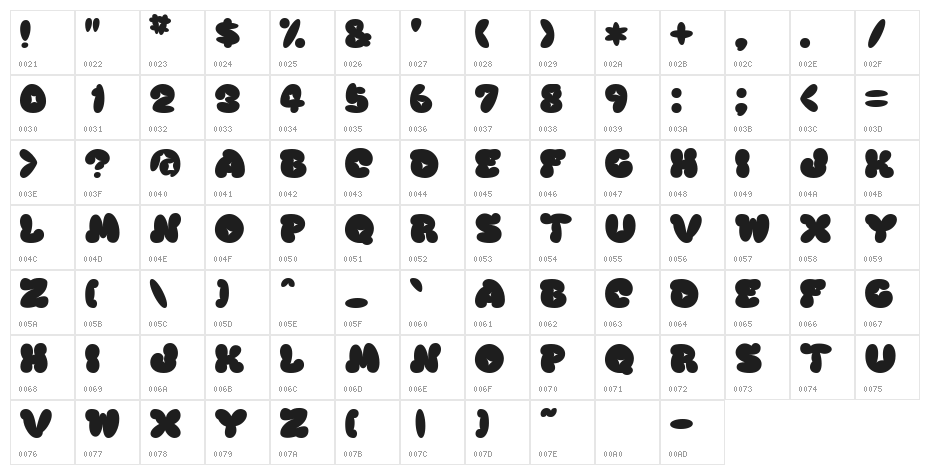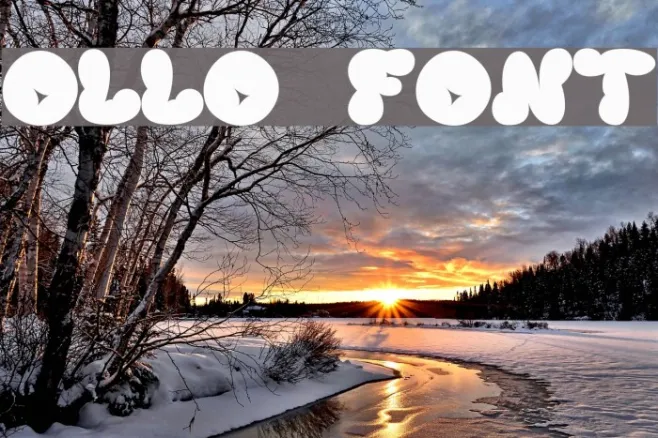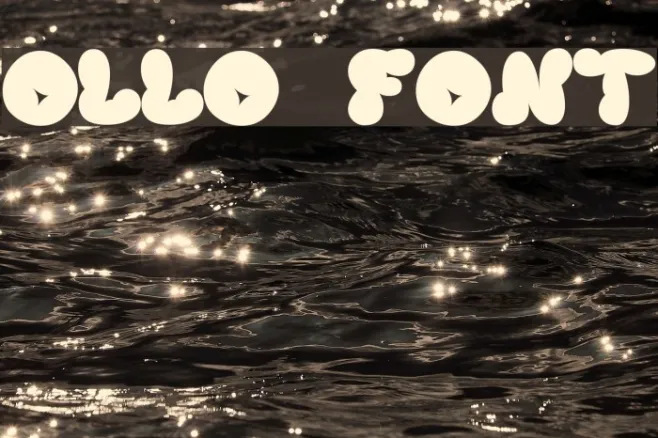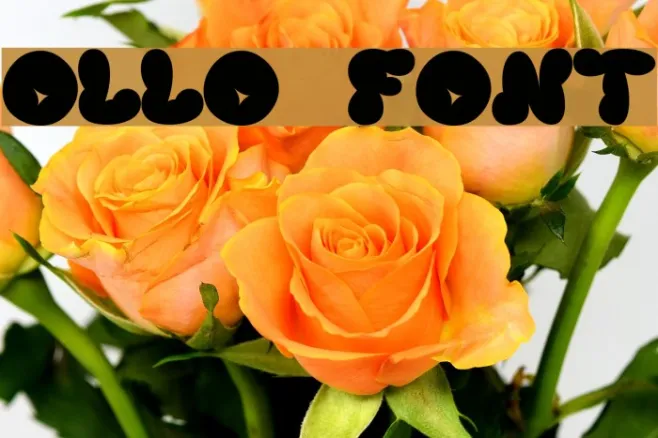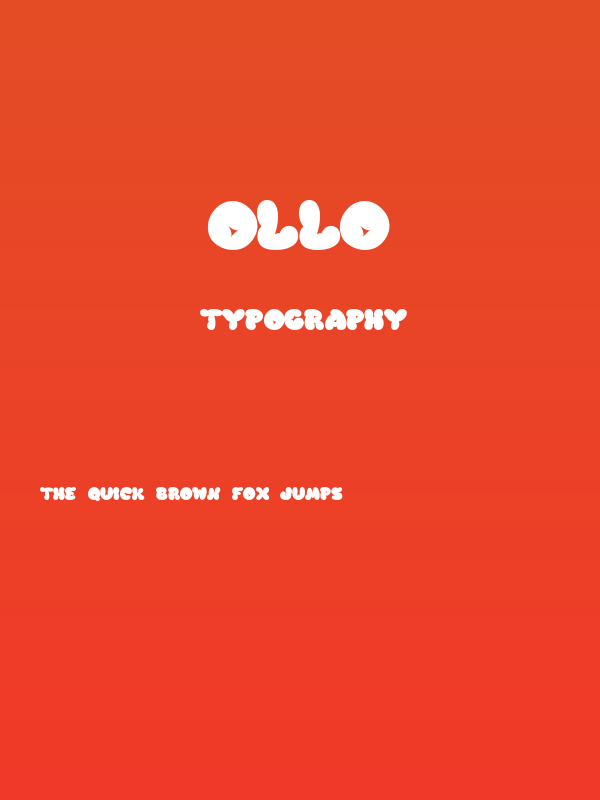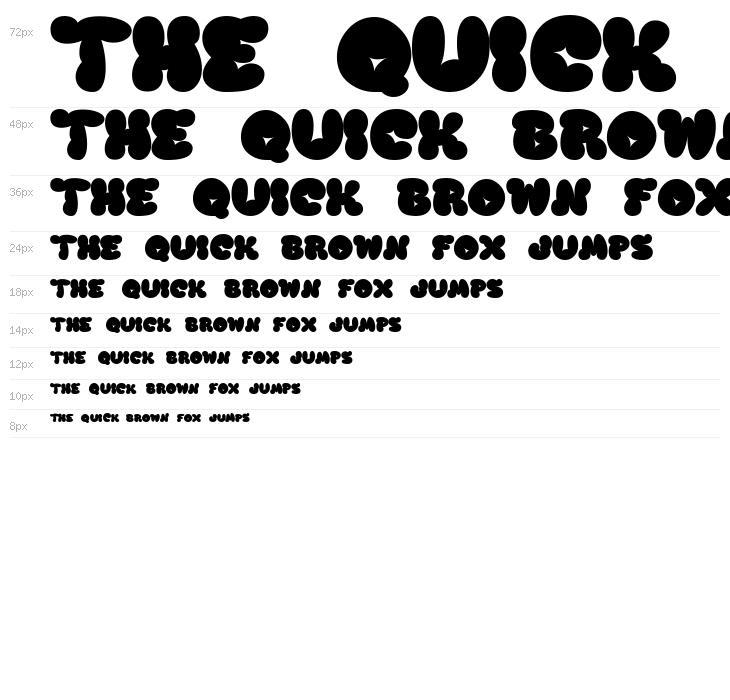
ollo Font
ollo Description
This playful and bold font features thick, rounded characters with a bubbly appearance. Each letter and number is designed with a consistent, heavy weight that gives it a strong presence. The characters are tightly spaced, enhancing the compact and cohesive look. The font's unique style is characterized by its exaggerated curves and soft edges, making it stand out in any design. Its whimsical nature makes it ideal for creative projects that require a fun and engaging typeface.